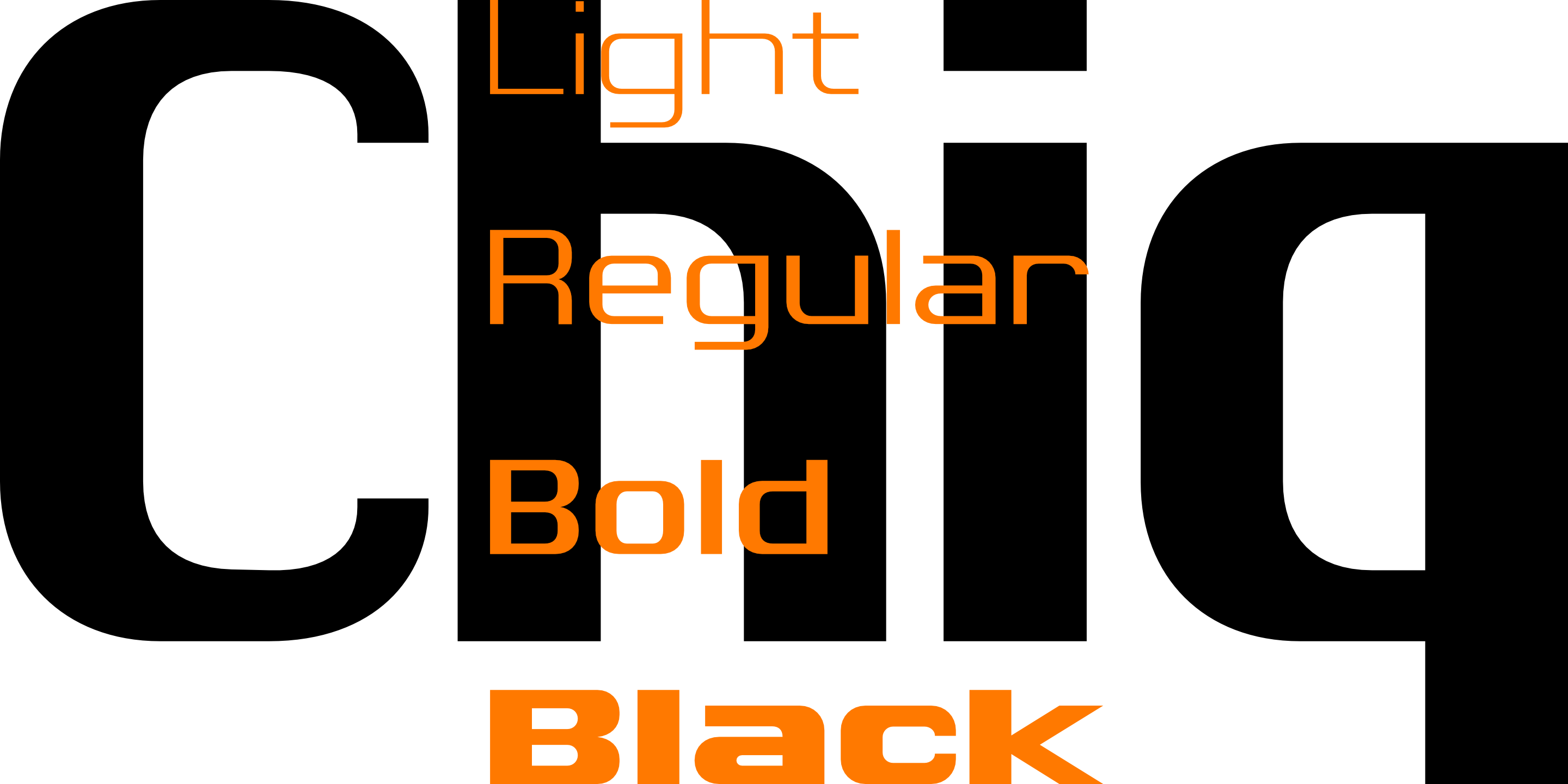
Introducing Chiq Font Free Download – a sleek, contemporary sans-serif that effortlessly blends minimalist precision with subtle sophistication. This versatile typeface delivers clean lines and balanced proportions, making it ideal for modern branding, digital interfaces, and editorial projects that demand both clarity and style.
Why Chiq Font Stands Out
Crisp, geometric letterforms with refined details
Multiple weights for dynamic typographic hierarchy
Excellent readability across screens and print
Neutral yet distinctive character
Extended numerals and punctuation
OpenType features including alternates
Optimized for UI/UX and high-resolution displays
Modern Applications:
Mobile app interfaces
Corporate communications
Minimalist packaging
Editorial design
Design Tip: Pair with generous white space and a monochromatic palette for maximum modern elegance!